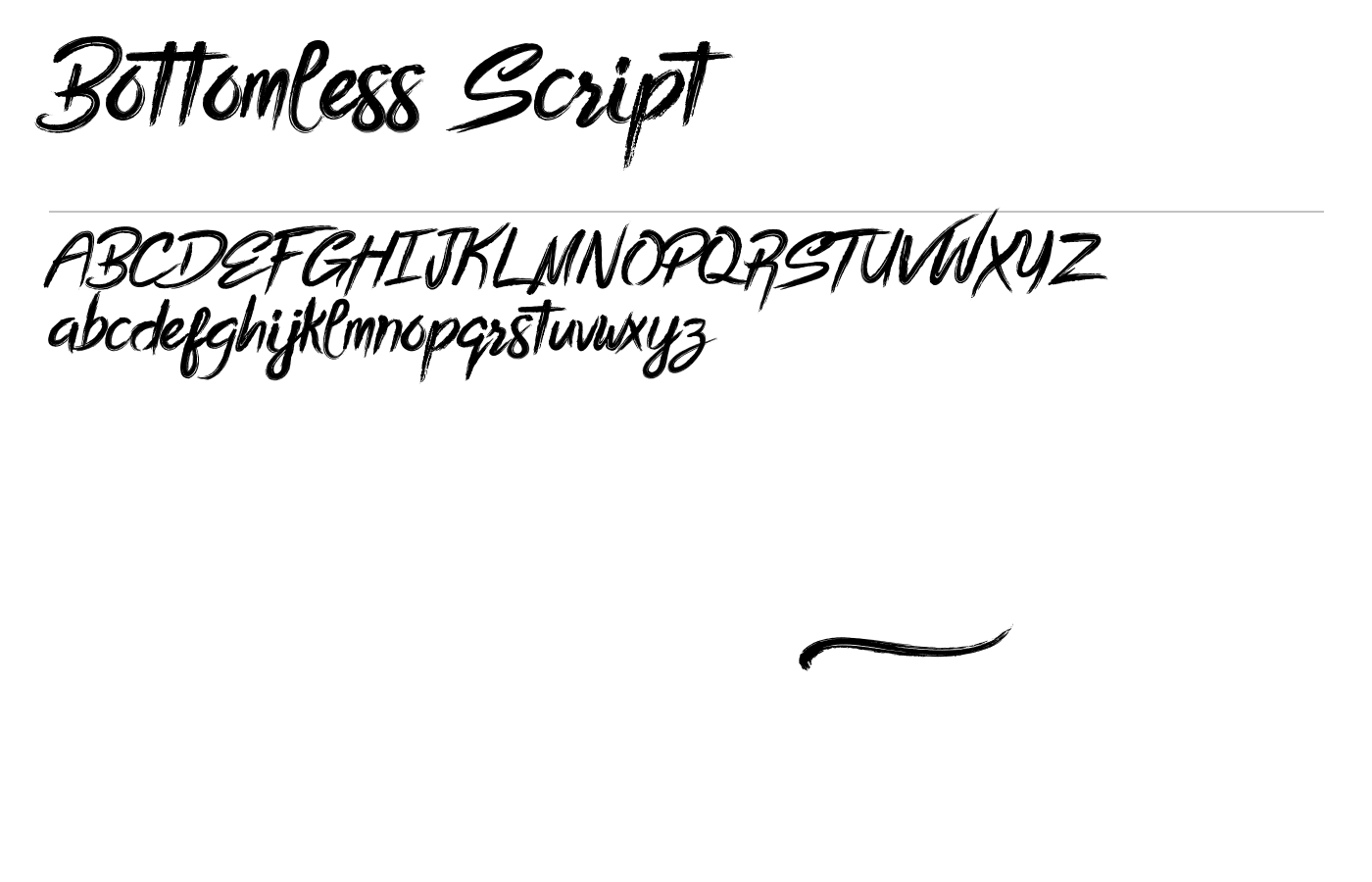
Bottomless Script is a dynamic and expressive handwritten script font characterized by its rough, textured brush strokes and lively, casual style. Its varying line thickness and slightly condensed letterforms create an energetic and artistic feel, making it ideal for creative branding, informal headlines, and eye-catching designs that seek a personal, handcrafted touch. This font works beautifully for projects looking to convey spontaneity, creativity, and a sense of individuality.
Bottomless Script Font